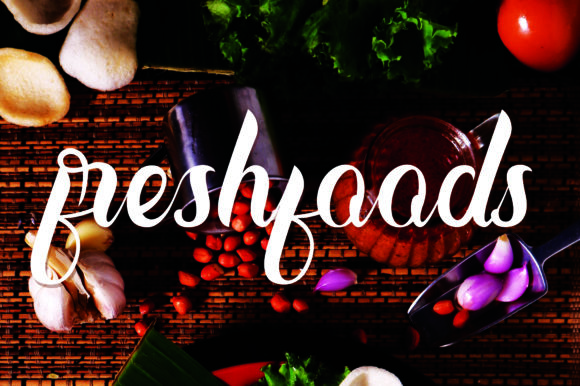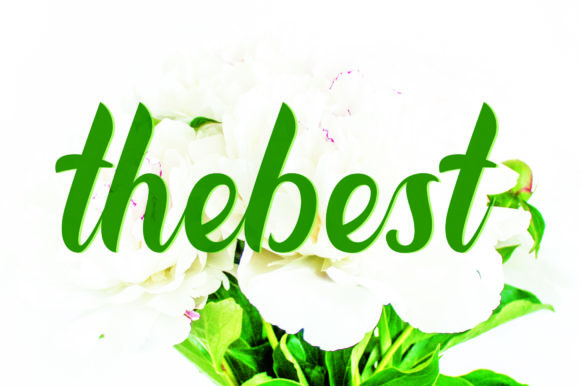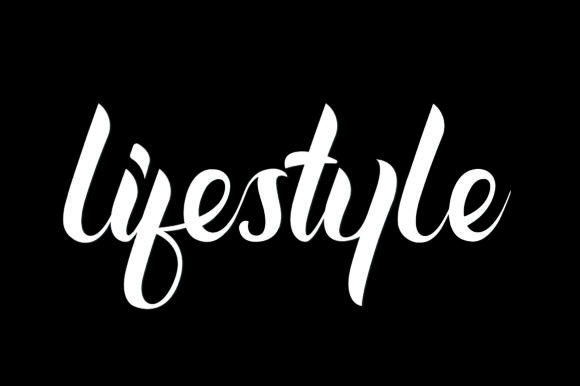
Unleashing the Romance with Beauty Font
Have you ever been captivated by the sweet, handwritten notes from a loved one? The way the words dance across the page, speaking directly to your heart? That’s exactly the kind of magic that Beauty Font aims to bring to your designs.
Beauty Font is a delicate, romantic handwritten font that exudes elegance and sophistication. Whether you’re creating a wedding invitation, a thank you card, or a logo for a beauty product, this font adds a touch of personal style that’s sure to leave a lasting impression. For designers, Beauty Font is a valuable asset in their toolkit, offering a versatile and emotive way to connect with their audience.
Beauty Font Key Features
- Font Style: A beautiful, elegant script font designed for various uses, including titles, headings, and body text.
- Size: The font family includes multiple weights, ranging from Thin to Black, allowing for flexibility in design and composition.
- Resolution: Beauty Font is designed for high-resolution displays, making it suitable for use in digital media, such as websites, social media, and mobile apps.
- Unique Characteristics: The font features a unique blend of traditional and modern elements, with intricate details and subtle flair, making it stand out in various design contexts.
Beauty Font Review
Overall, I was quite excited to dive into the Beauty Font and see what it had to offer. Here’s my honest take.
- The font’s unique, elegant design is a standout feature. It’s perfect for high-end branding and luxury goods.
- The extensive character set and language support make it a great choice for international clients.
- The font is highly customizable, allowing for fine-grained control over spacing, size, and color.
- The weight of the font can sometimes feel overwhelming, making it difficult to read in large blocks of text.
Overall, I think Beauty Font is a solid choice for designers looking to add a touch of luxury to their projects. While it may have some limitations, its unique design and customization options make it a worthwhile investment for those who can afford it.
Beauty Font is ideal for:
- Beauty and wellness branding
- Spa and salon marketing materials
- Product labels and packaging
For optimal results, use Beauty Font in combination with high-quality images and minimal background noise.